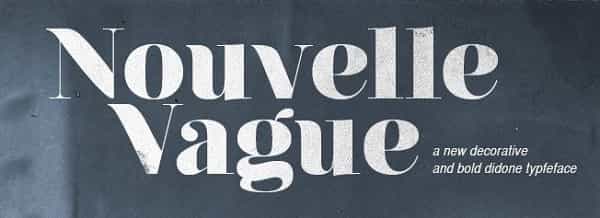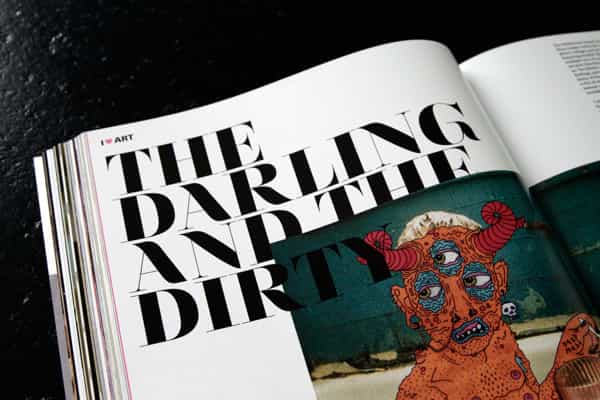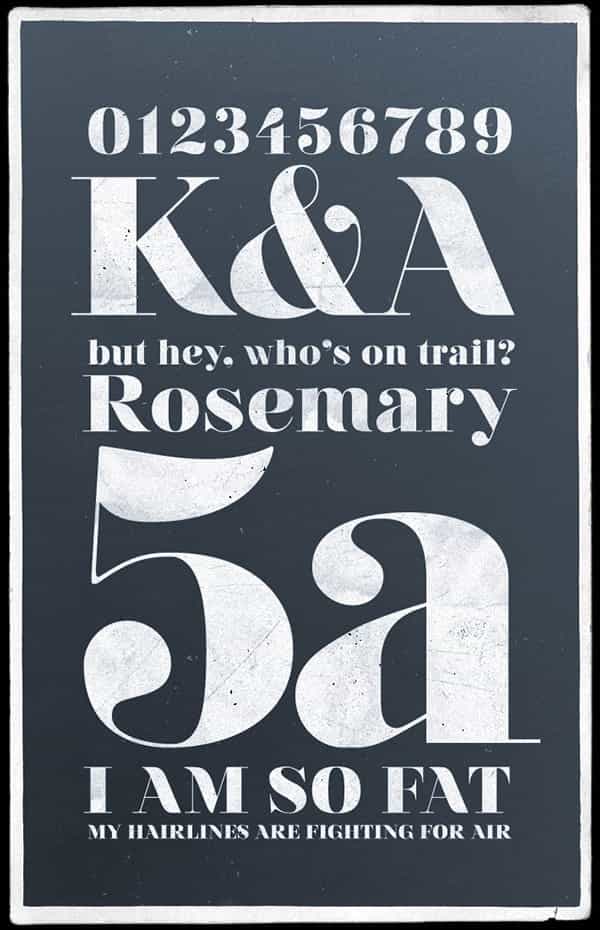
Nouvelle Vague is a serif font and gives a classy look when used on any text and when one reads it for the first time. This is a fresh new Serif that has a touch of the traditional as well as being retro, a design by Dirk Schuster.